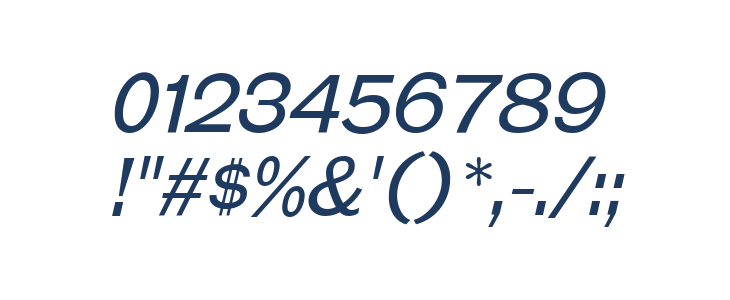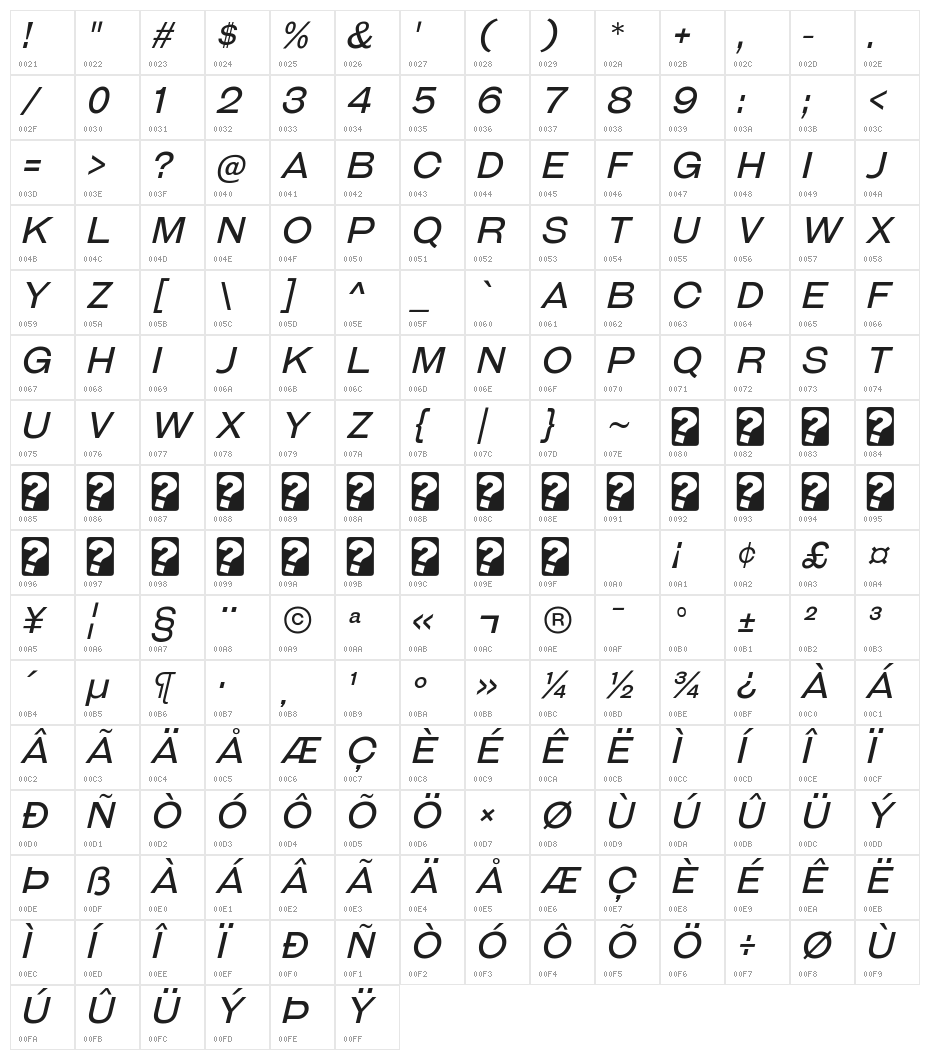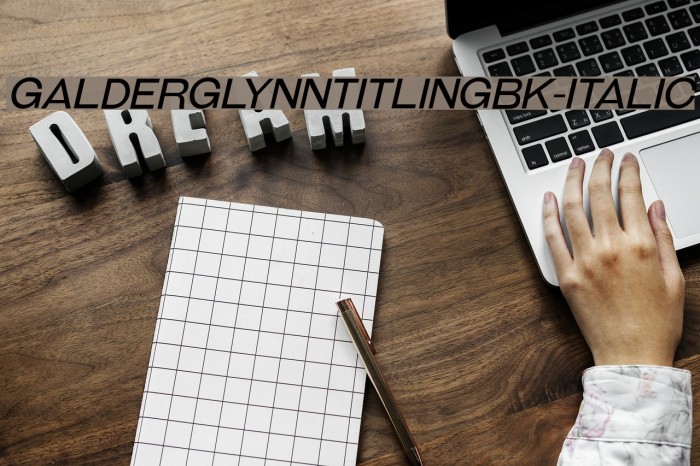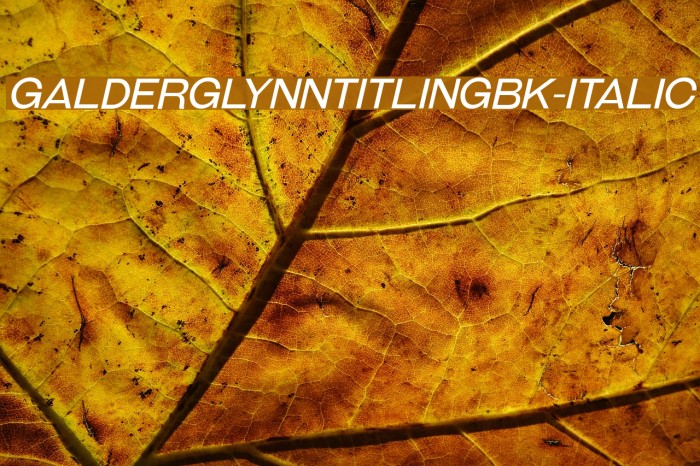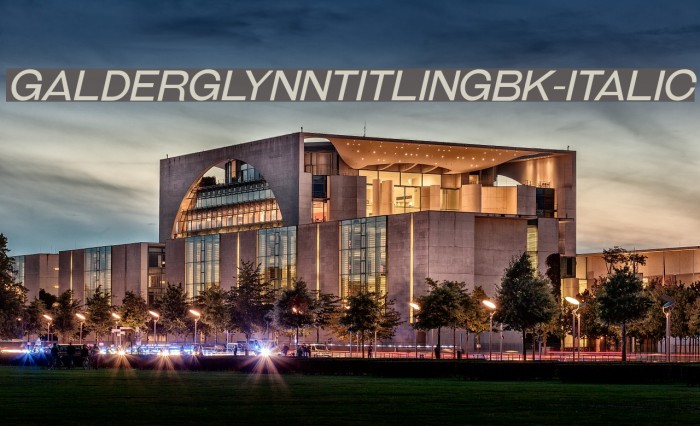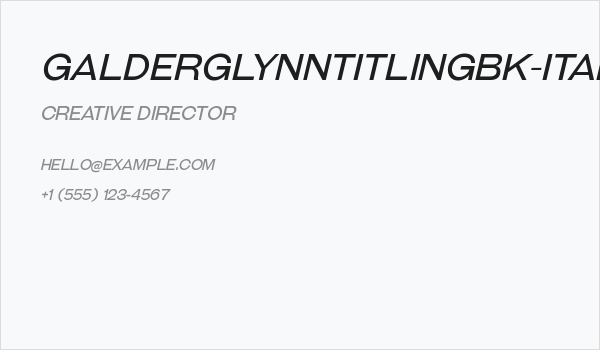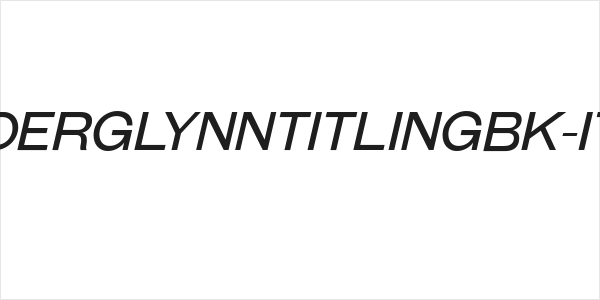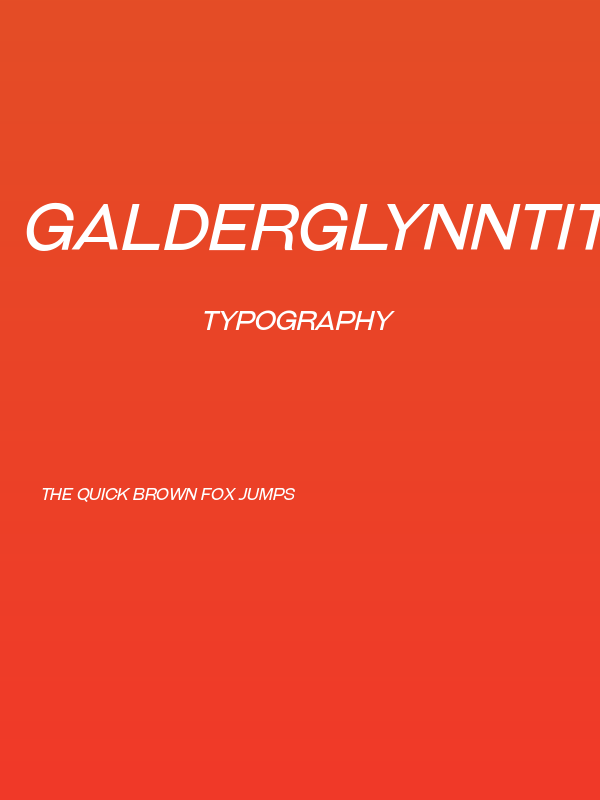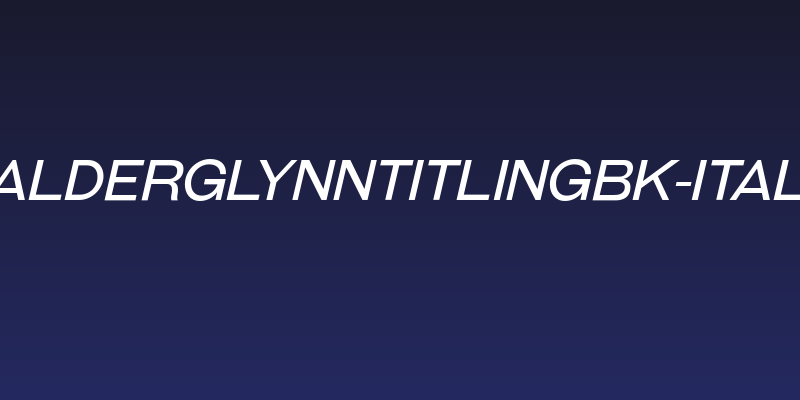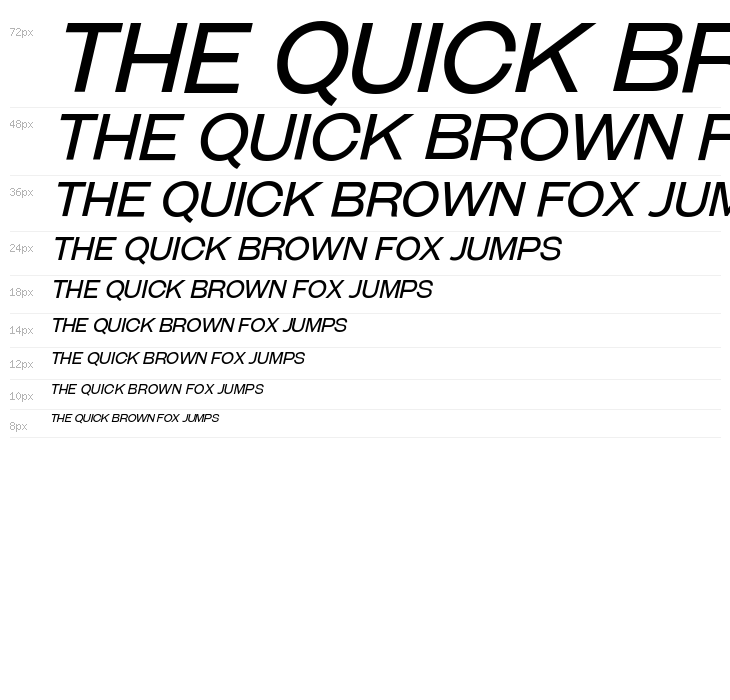
GalderglynnTitlingBk-Italic Font
GalderglynnTitlingBk-Italic Description
This font features a sleek, italicized style with a modern and sophisticated appearance. The characters are slightly slanted, giving a dynamic and forward-moving impression. The strokes are clean and uniform, with a medium contrast that enhances readability while maintaining elegance. The font's design is consistent across uppercase, lowercase, numbers, and special characters, ensuring a cohesive look in any application. Its contemporary aesthetic makes it suitable for various design projects that require a touch of refinement.
| Use Case | Headlines, Logos, Editorial design |
| Proposed Projects | Ideal for branding, editorial design, advertising, and digital media where a modern and elegant touch is desired. |